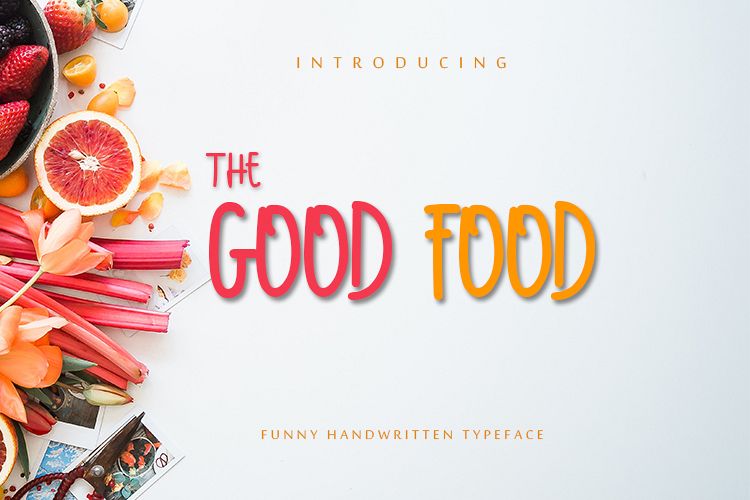
THE GOOD FOOD
The Good Food Funny Typeface is a very cute and unique font with various forms of letters that have its own character is very suitable for various themes, especially for food and beverages